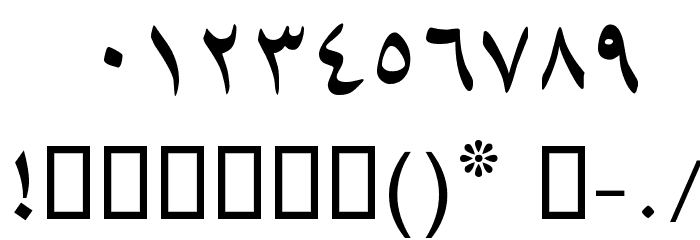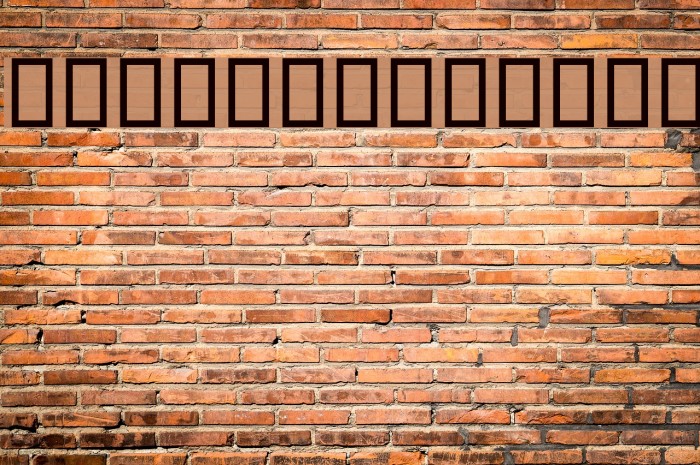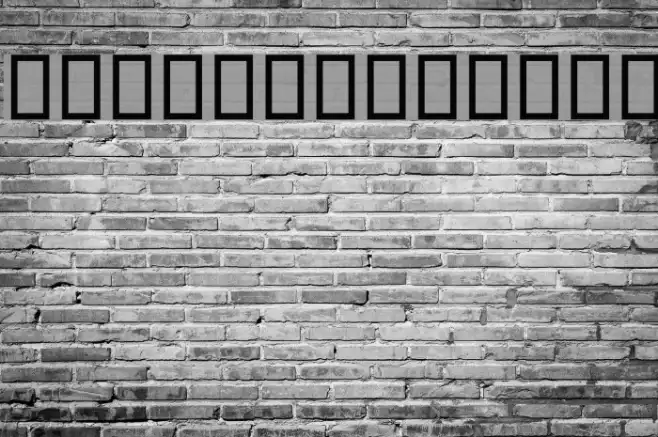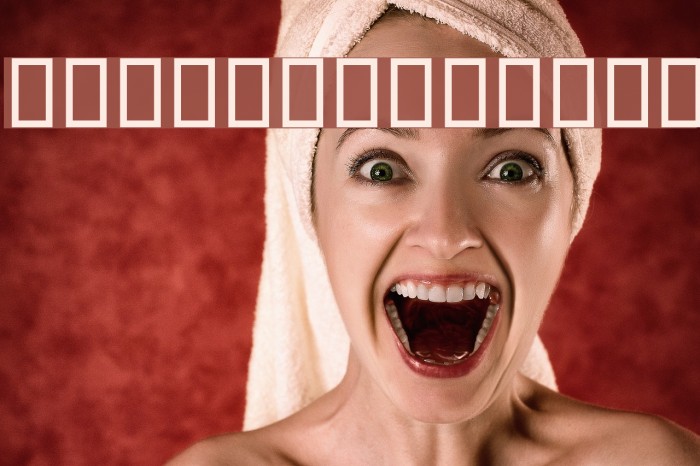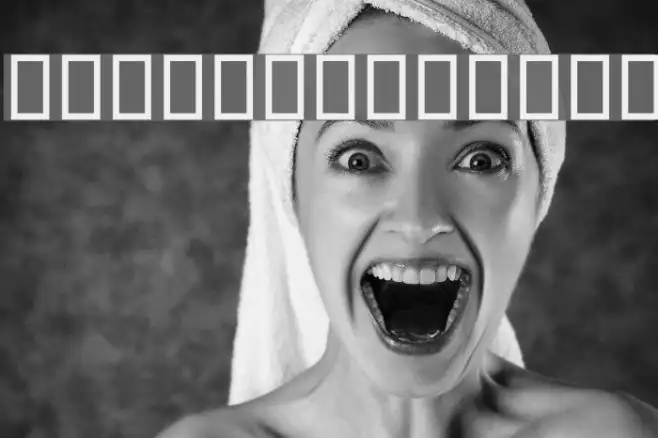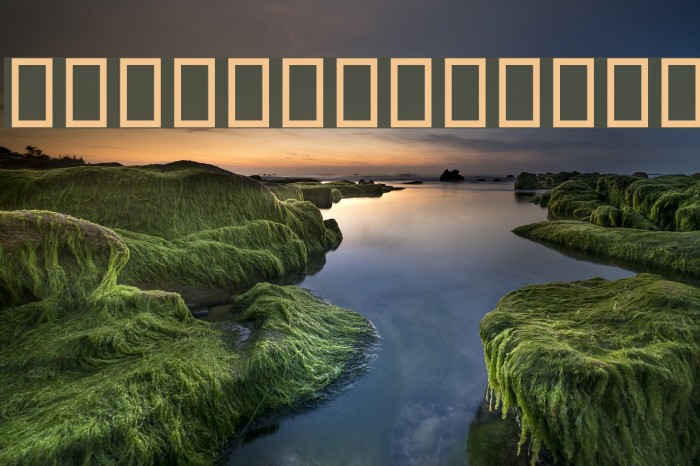
Naskh Qhalam Font
Naskh Qhalam Description
This font features a traditional Arabic script style, characterized by its elegant and flowing lines that are both intricate and readable. The script maintains a balance between decorative elements and legibility, making it suitable for formal and artistic uses. The numerals are distinct and follow the Arabic numeral system, adding to the authenticity of the script. The special characters are designed to complement the overall aesthetic, ensuring consistency across all glyphs.
| Overall Style | Classic |
| Use Case | Headlines, Artistic projects, Cultural publications |
| Proposed Projects | Ideal for use in cultural publications, artistic projects, formal invitations, and branding that requires an authentic Arabic touch. |